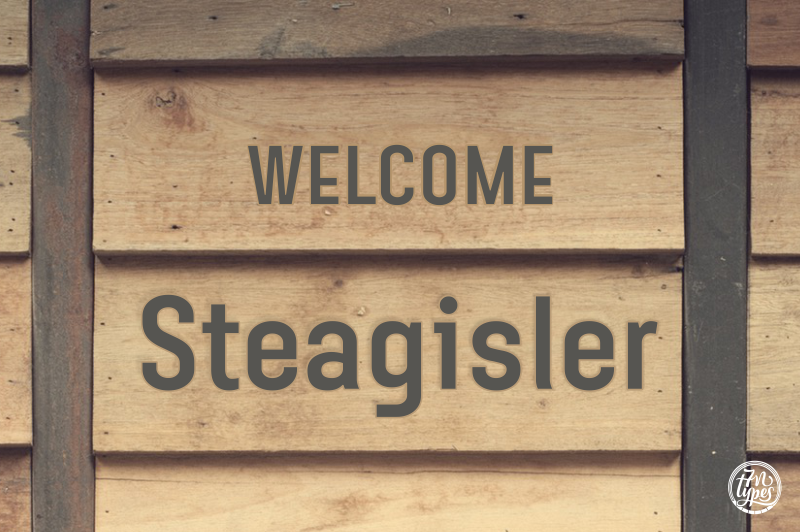
Preview and download Steagisler Font. Created by 7NTypes in Basic Sans serif styles with Free for personal use license.
Steagisler is a clean sans serif that comes in 2 styles: Regular & Italic. Steagisler is a easy to read font that is very pleasant on the eyes. That makes it suitable for a lot of applications, including body text. You can use this font easily on print and on the web. License Personal use: FREE (Donation is much appreciated!) Commercial use: BUY it only on Creative Fabrica: https://www.creativefabrica.com/product/steagisler/ref/87/ Contact me [c7nazara@gmail.com] or visit my website https://7ntypes.com if you have any request or question. Thank you. |